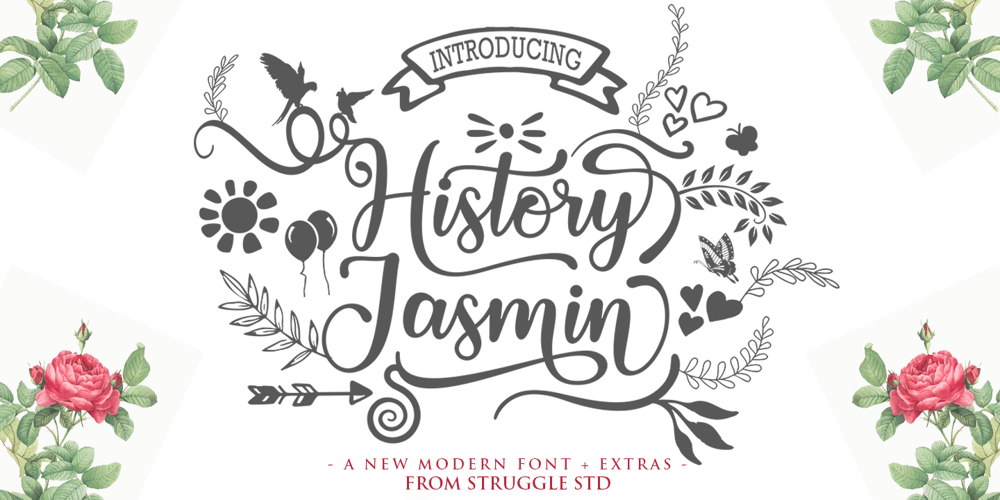
History Jasmin Font Family was designed by Andri Kurniawan and published by Struggle Studio. History Jasmin contains 1 styles and family package options. History Jasmin is a delicate, elegant and flowing handwritten font. It has beautiful and well balanced characters and as a result, it matches a wide pool of designs. History Jasmin features a varying baseline, smooth lines, gorgeous glyphs and stunning alternates. History Jasmin name was inspired by the story of Aladdin and Princess Jasmin.